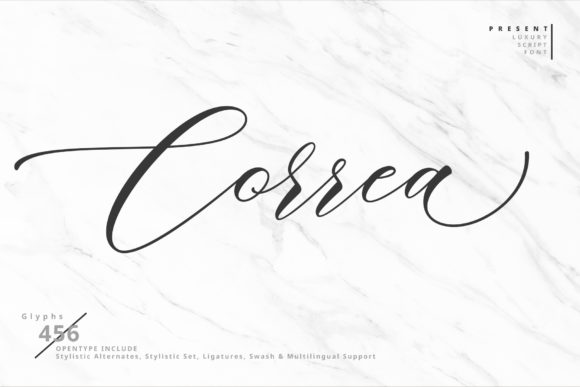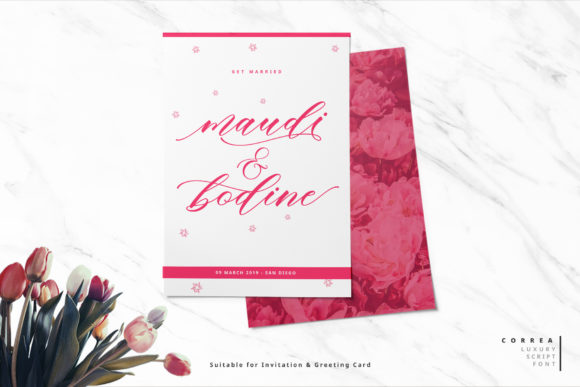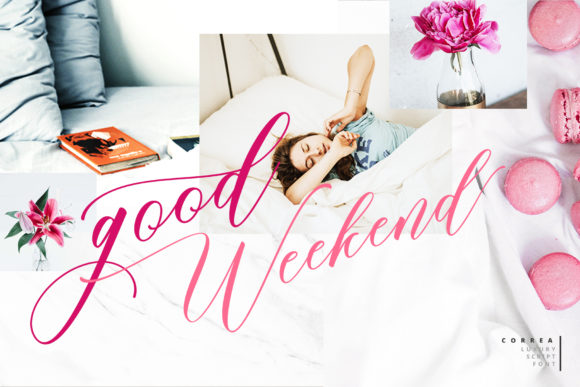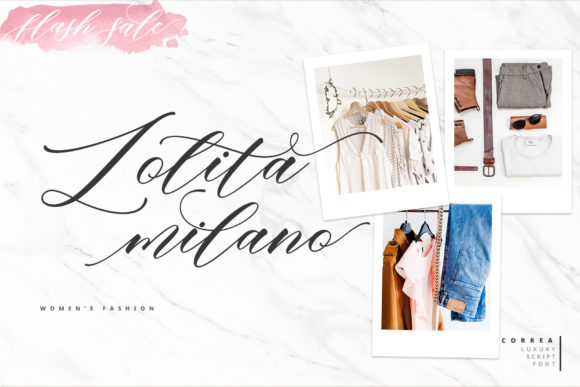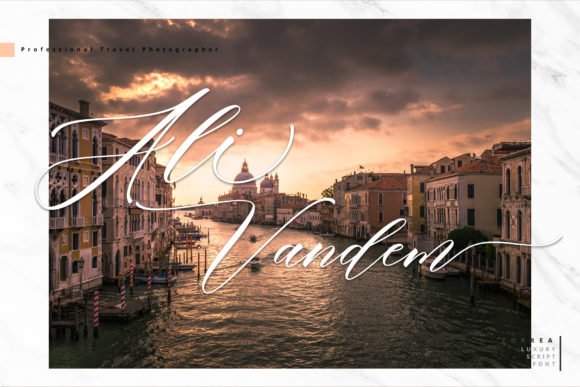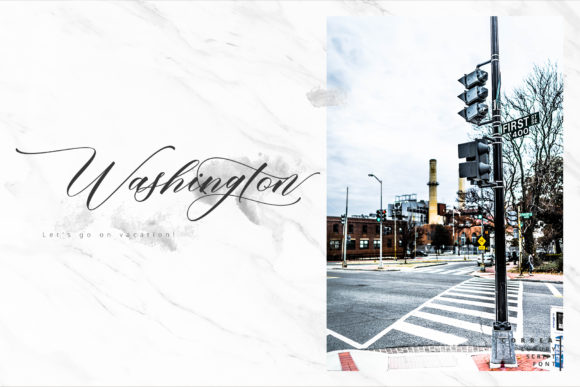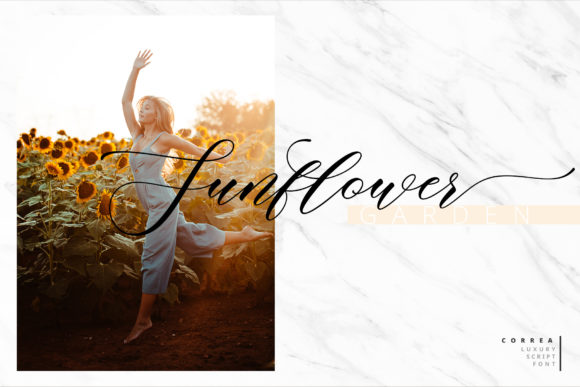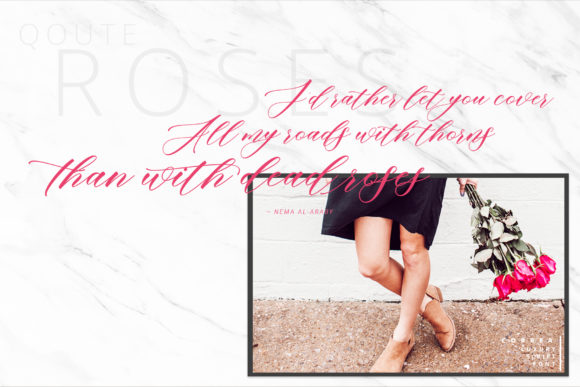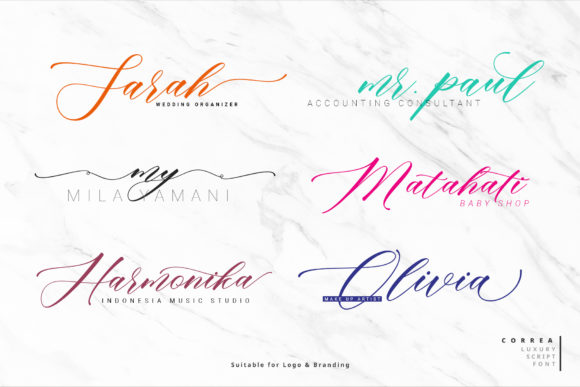
Correa Script Font
About Correa Script Font
Correa Script is a simple but fun handwritten font with a bold twist. Fall in love with its modern and chic style.